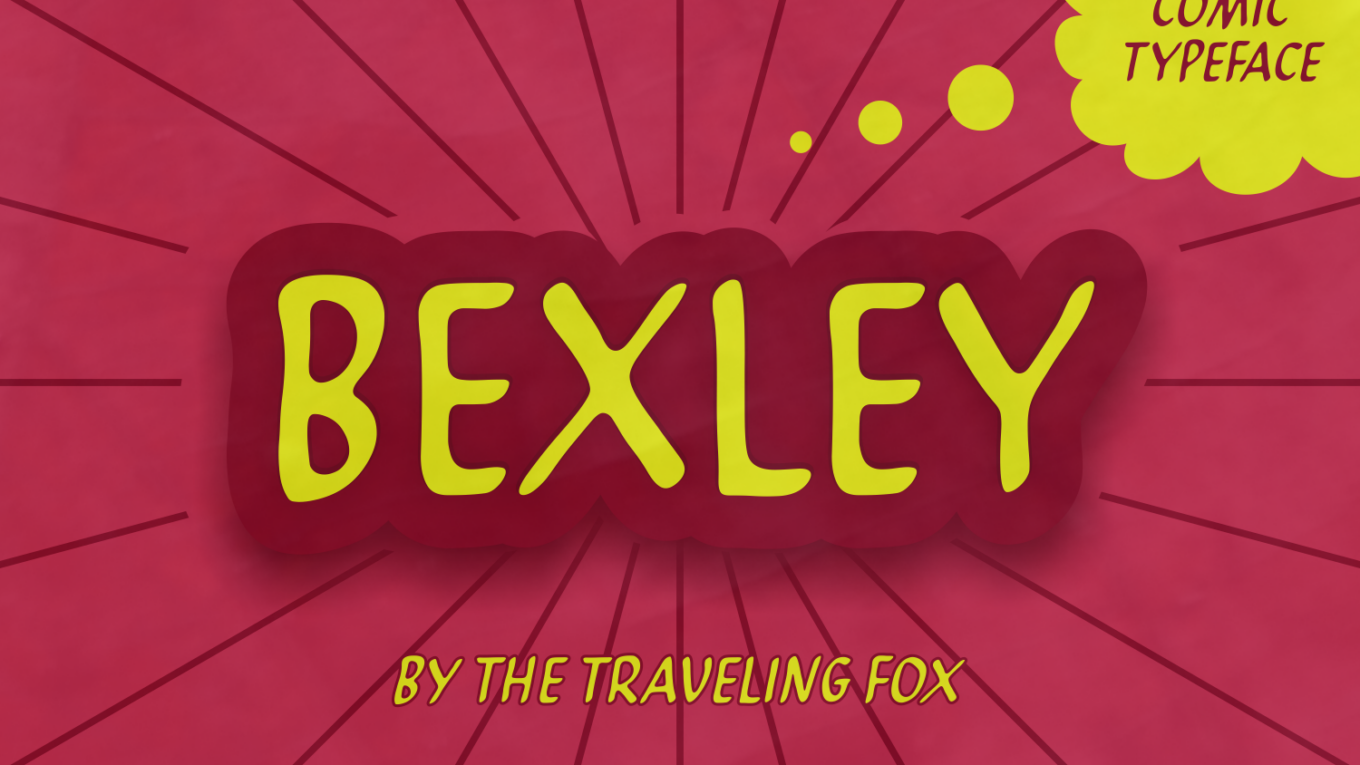
Bexley Font: The Ultimate Guide to this Nifty and Warm Comic Typeface
Are you a designer or crafter looking for a unique and versatile font to add to your collection? Look no further than the Bexley Font! This nifty and warm comic typeface is easily legible and adaptable to a large number of designs, making it the perfect addition to your typography arsenal. In this article, we’ll dive into the features and benefits of the Bexley Font, and explore how you can use it to elevate your designs.
What is Bexley Font?
Bexley Font is a freeform comic typeface that boasts a unique and organic look. Its freeform weighting gives it an earthy and casual feel, making it perfect for designs that require a touch of personality and whimsy. Whether you’re working on a project for a client or creating something for your own brand, Bexley Font is sure to make a statement.
Key Features of Bexley Font
- Easily Legible: Bexley Font is designed to be easy to read, even at smaller sizes. This makes it perfect for body text, captions, and other applications where legibility is key.
- Adaptable: Bexley Font is incredibly versatile, and can be used in a wide range of designs. From bold and playful to subtle and sophisticated, this font can adapt to any style or tone.
- Freeform Weighting: The freeform weighting of Bexley Font gives it a unique and organic look that’s perfect for designs that require a touch of personality and whimsy.
- Fun and Playful: Bexley Font is a fun and playful font that’s perfect for designs that require a bit of humor and wit.
Benefits of Using Bexley Font
So why should you choose Bexley Font for your next design project? Here are just a few benefits of using this amazing font:
- Adds Personality to Your Designs: Bexley Font is a unique and quirky font that’s sure to add personality to your designs. Whether you’re working on a project for a client or creating something for your own brand, this font is sure to make a statement.
- Perfect for Comic and Cartoon-Style Designs: Bexley Font is a comic-style font that’s perfect for designs that require a bit of humor and wit. Whether you’re creating a comic book, cartoon, or animated video, this font is sure to be a hit.
- Great for Headings and Titles: Bexley Font is a bold and eye-catching font that’s perfect for headings and titles. Use it to add a touch of drama and flair to your designs.
How to Use Bexley Font in Your Designs
So how can you use Bexley Font in your designs? Here are a few ideas to get you started:
- Pair it with Other Fonts: Bexley Font pairs well with a wide range of other fonts, from bold and playful to subtle and sophisticated. Experiment with different font combinations to find the perfect look for your design.
- Use it for Headings and Titles: Bexley Font is a bold and eye-catching font that’s perfect for headings and titles. Use it to add a touch of drama and flair to your designs.
- Add it to Your Brand Identity: If you’re looking for a unique and memorable font to add to your brand identity, Bexley Font is a great choice. Use it consistently across your designs to create a cohesive and recognizable look.
In conclusion, Bexley Font is a nifty and warm comic typeface that’s perfect for designers and crafters looking for a unique and versatile font. With its freeform weighting, easily legible design, and adaptable style, this font is sure to add personality and whimsy to your designs. Whether you’re working on a project for a client or creating something for your own brand, Bexley Font is a great choice. So why wait? Add Bexley Font to your collection today and start creating amazing designs!